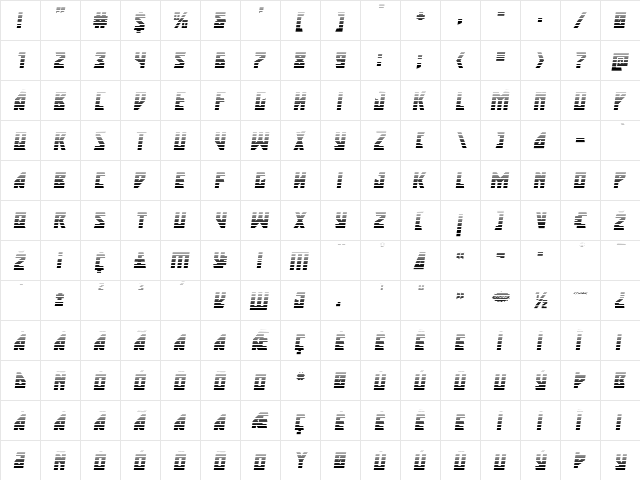
Major Force Gradient Italic Italic
Design Context for Major Force Gradient Italic Typeface
Major Force Gradient Italic brings high-energy athletic personality to the page — its confident, muscular forms are built for impact. The dynamic lean of this cut emphasises speed and emphasis in any layout.
A natural choice for gym brands, fantasy sports, jersey lettering, and action-driven headlines.
Font Pairing: Use alongside a condensed or geometric sans for supporting copy — keep the pairing bold, functional, and free of ornament.
Pro Tip: Use Major Force Gradient Italic in all-caps headlines where its athletic energy can fully express itself. Pair with a solid, simple sans for supporting text.